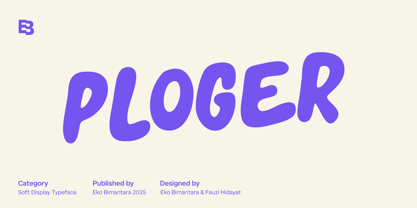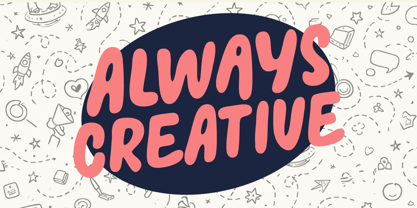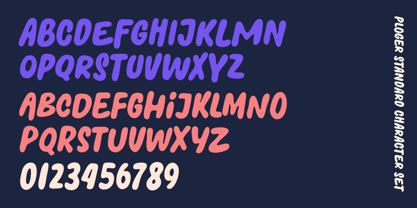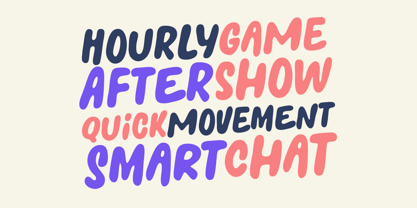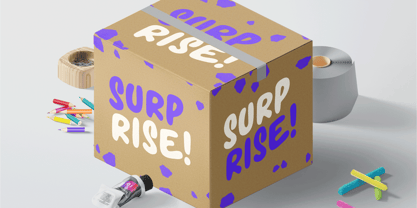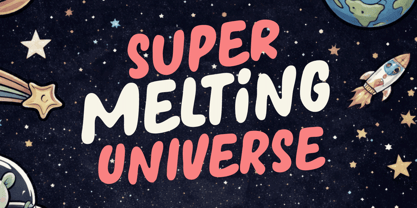
Ploger
by Eko Bimantara
The Ploger Font Family was designed by Eko Bimantara and published by Eko Bimantara. Ploger contains 1 styles. More about this family
Ploger is a fun and soft display typeface designed to deliver a cheerful and inviting visual tone. With its smooth curves and playful character, Ploger works perfectly for joyful themes, making it an excellent choice for food brands, children’s products, packaging, posters, and eye-catching headlines that aim to feel friendly, warm, and approachable across both print and digital designs.
Eko Bimantara is a type designer from Indonesia. Always has an intention to creating fonts that not only look great but also perform across a wide range of mediums and also across wide range of theme. The goal is to give designers the tools to make their projects that speaks a lot with various expression. Eko Bimantara’s fonts are featured in everything from corporate identities to street art posters, and have numerous ideas and concept ready to expand for fresh fonts for years further.